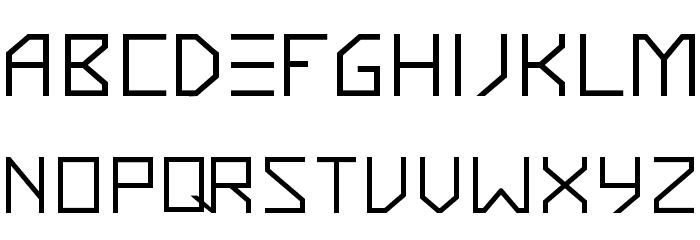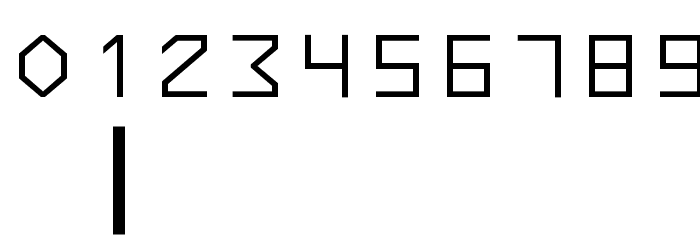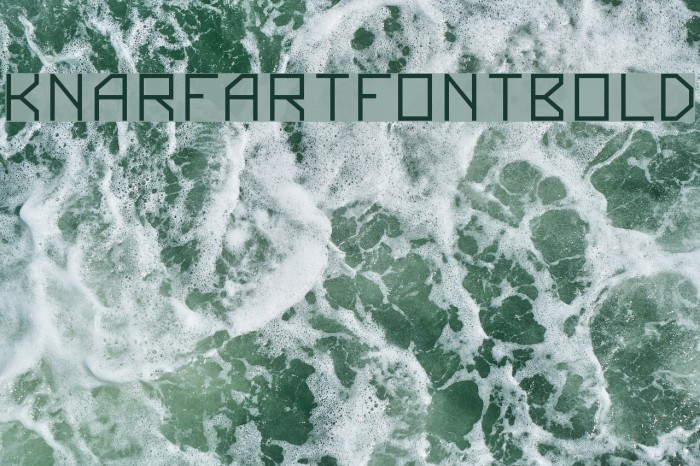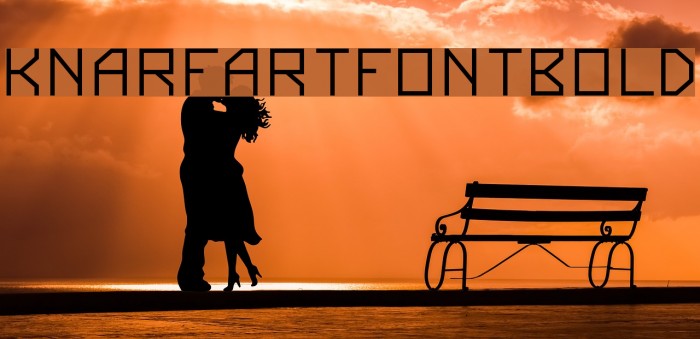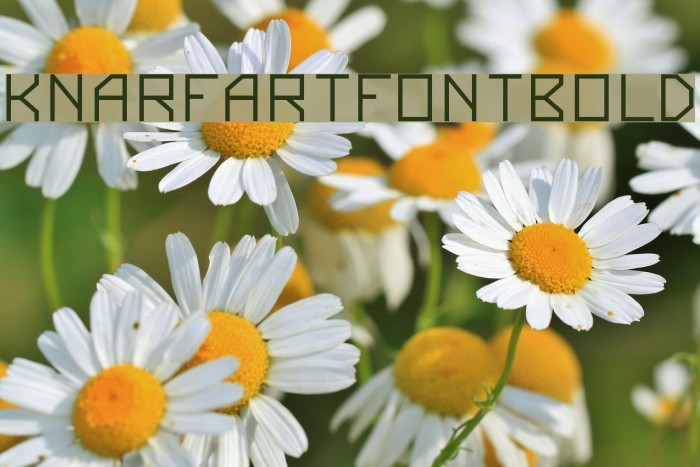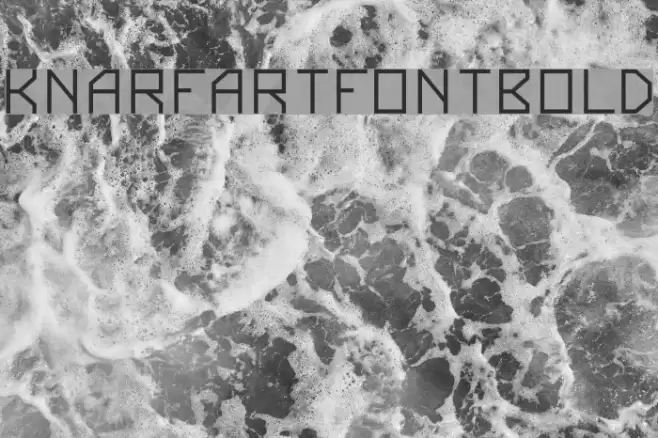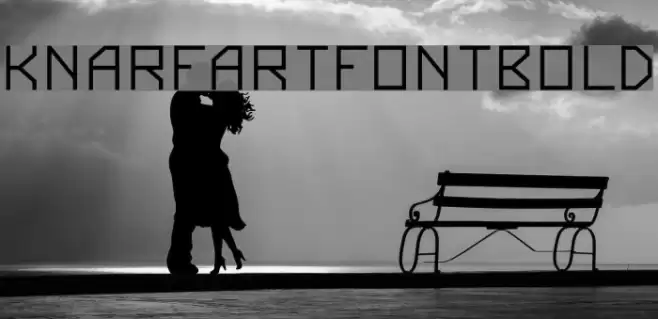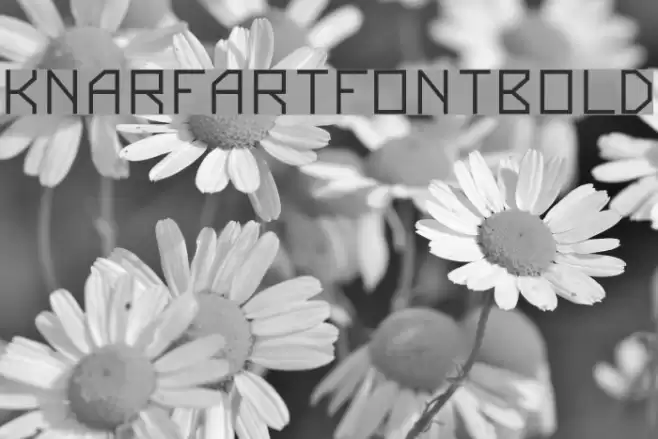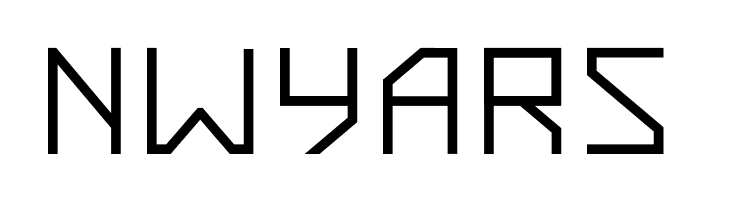
KnarfArtFont-Bold Font
This font features a geometric and angular design, characterized by its sharp edges and clean lines. The uppercase letters are uniform in height, with a consistent stroke width that gives it a bold appearance. The numbers and special characters maintain the same angular style, creating a cohesive look across all characters. The font's modern and futuristic aesthetic makes it suitable for projects that require a contemporary and edgy feel. The spacing between characters is normal, ensuring readability while maintaining its distinctive style.
A bold, geometric font with sharp edges and a modern aesthetic.
- Proposed Projects: Ideal for branding, logos, posters, and digital media that require a modern and bold statement.